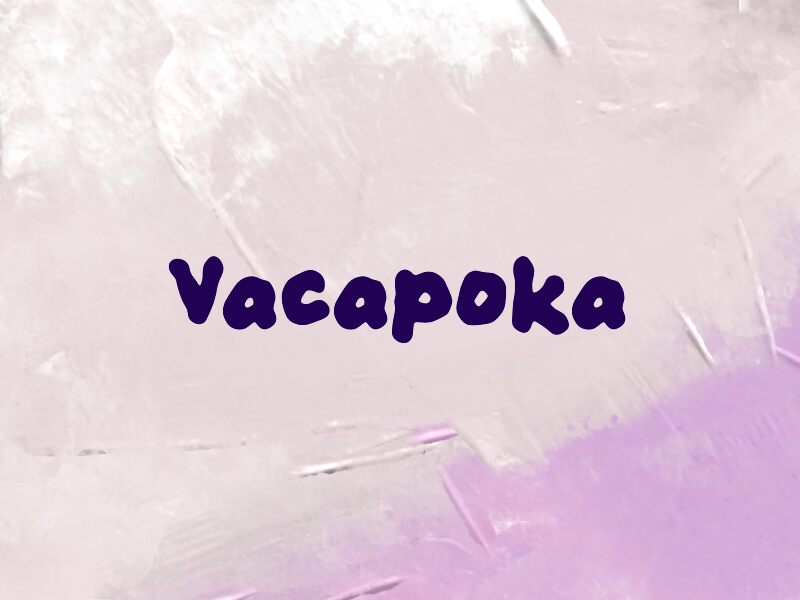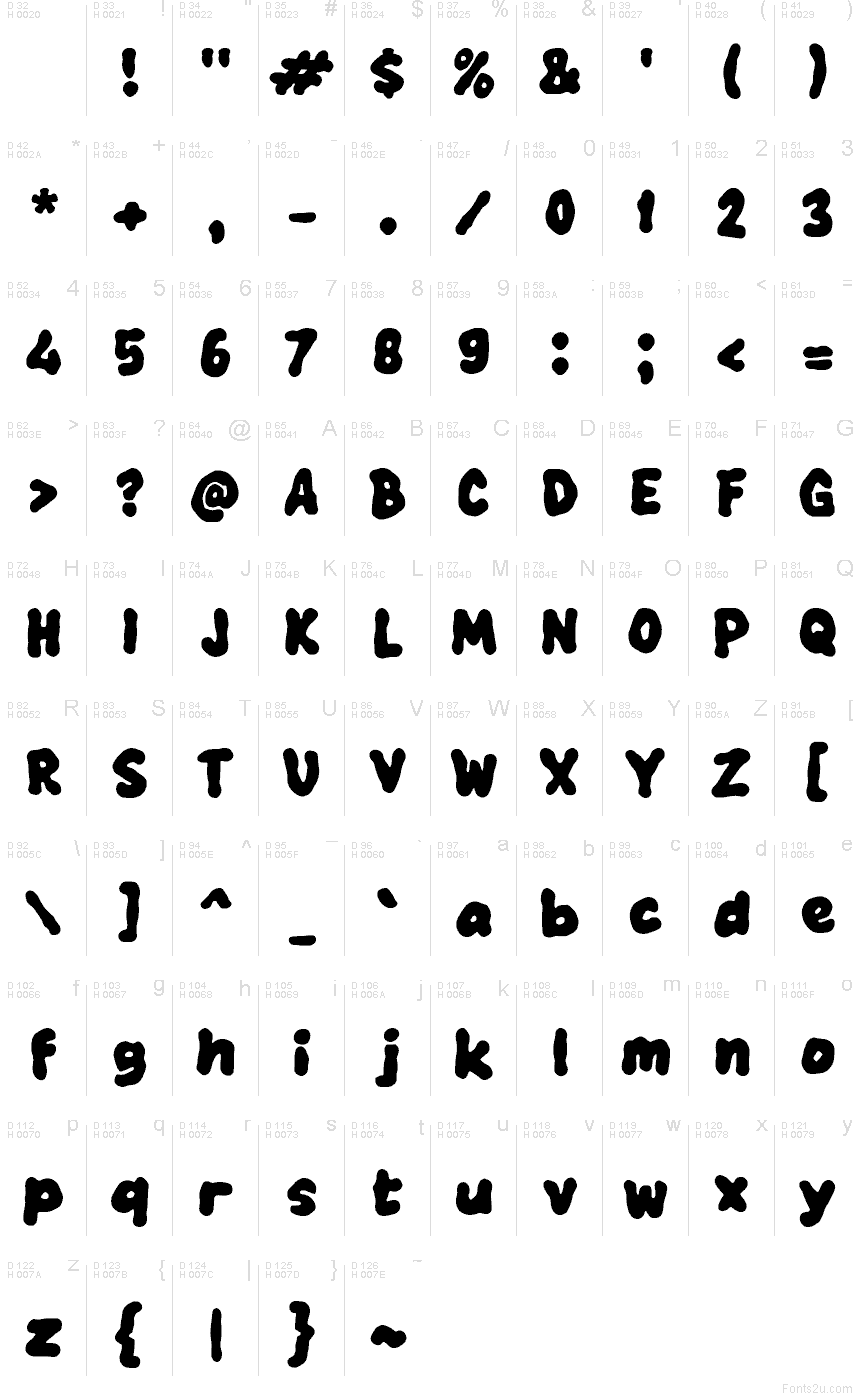
Vacapoka
Vacapoka font by wepfont.com is a free cartoon display typeface with soft, blobby letterforms that look like they’ve been squeezed out of a paint tube. The chunky strokes, rounded corners, and slightly wobbly rhythm give it a bouncy, hand-drawn feel that jumps off the page. It reads loud and playful, like a title card from a classic Saturday-morning cartoon.
Using Vacapoka, this free font shines on kids’ book covers, snack packaging, toy branding, party invitations, YouTube thumbnails, and bold logo lockups where you need instant fun. The tight, inky shapes hold up well at large sizes, making headlines feel juicy and energetic. Pair Vacapoka with a clean geometric sans for body text to keep the overall look playful but readable.